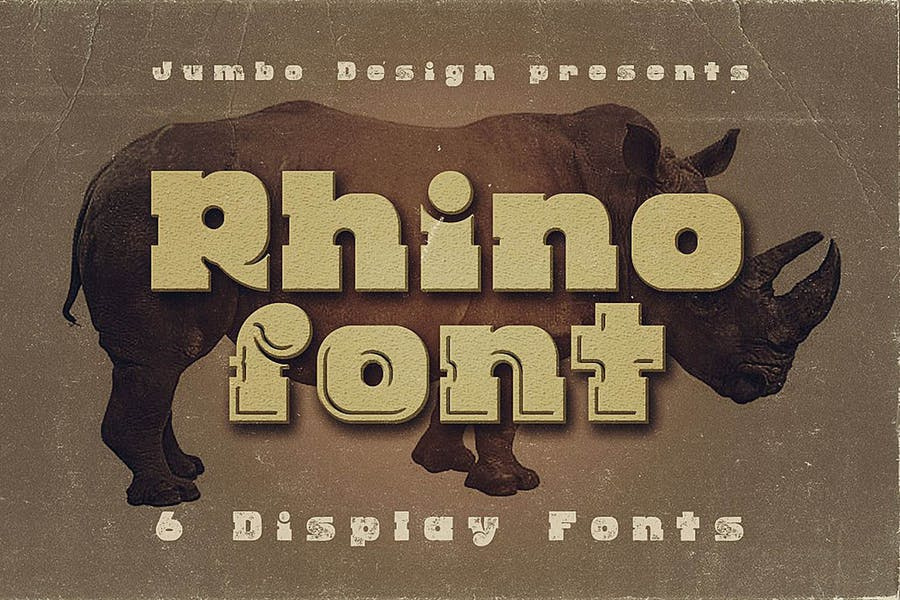
Rhino - Display Font
Rhino - Display Font is perfect for wildlife conservation organizations, safari adventure companies, rugged outdoor gear brands, powerful sports teams, strength training facilities, protective security services, robust construction companies, endurance athletic events, conservation awareness campaigns, and authentic strength-focused lifestyle brands.
Rhino - Display Font creates excitement because it embodies the formidable strength and unwavering determination of one of nature's most powerful creatures with its massive letterforms and rhino-inspired character design. The font's imposing presence and natural force aesthetic instantly convey unstoppable power and protective strength, making any brand appear incredibly robust and authentically powerful. Its carefully crafted strength details and protective character create an immediate sense of natural force that captivates audiences seeking powerful experiences, strength quality, and products that celebrate the transformative power of natural strength and protective determination.
The Rhino - Display Font family includes multiple weights and styles: Regular, Bold, Black, Ultra Black, Heavy, Medium, Italic, Condensed, Extended, and Mighty versions. Each variant maintains the font's signature strength character while offering different levels of powerful styling and natural authenticity suitable for various strength-focused and conservation applications.
This commanding typeface brings the authentic spirit of natural strength into contemporary design with remarkable power and protective appeal. Rhino - Display Font Free Download provides strength brands and conservation organizations with access to premium power-inspired typography that embodies the essence of natural force and protective excellence. The font's massive design and strength authenticity make it ideal for businesses seeking to establish meaningful connections with strength-conscious audiences who appreciate natural power, protective determination, and the transformative power of unwavering strength that creates authentic protective force. Whether you're creating branding for conservation organizations, designing materials for strength training facilities, developing communications for outdoor adventure companies, or producing content for protective service platforms, this font delivers the powerful rhino atmosphere that resonates with audiences seeking genuine strength experiences, natural quality, and the protective force that comes from embracing authentic natural strength. Its versatile design ensures outstanding performance across both powerful printed materials and commanding digital strength platforms while maintaining the character of authentic natural typography. The font excels in applications requiring strength credibility and protective appeal. Conservation and strength professionals appreciate its ability to convey natural power while remaining highly functional for various strength communications and protective promotional materials. The comprehensive character set includes strength symbols and extensive international language support, making it perfect for global conservation brands and international strength organizations seeking to communicate authentic natural power, protective strength, and conservation excellence to diverse worldwide audiences who embrace natural strength, appreciate protective determination, and value the transformative power of genuine natural force that protects through unwavering strength, protective instinct, and the unstoppable power of natural determination that continues to inspire conservation efforts and strength training through the magnificent example of rhino resilience and protective power.